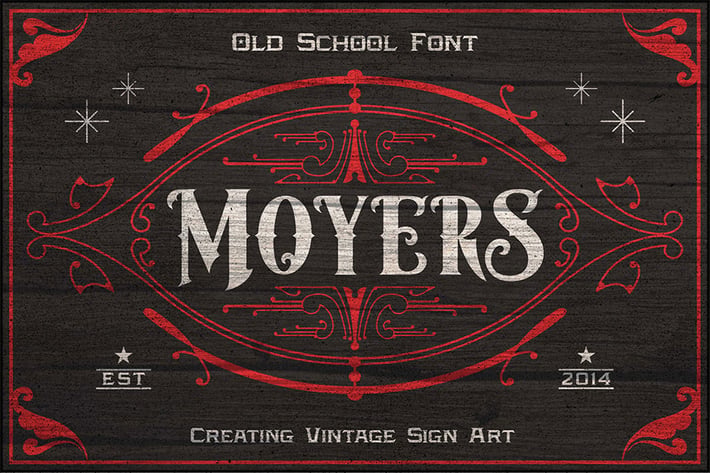
Moyers Typeface
Moyers typeface is Vintage Design, old-fashioned, elegant. This font good for vintage design, Display, t-shirt, logo, labels, posters and etc. Features: -Uppercase -Lowercase -Numerals -Basic punctuations Available in .OTF and .TTF formats. Thanks and happy designing!